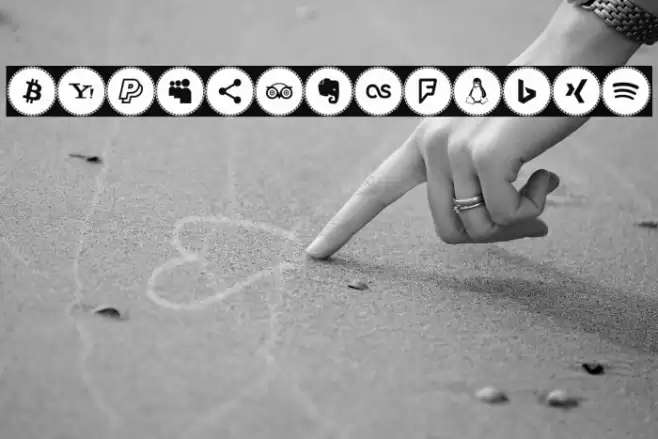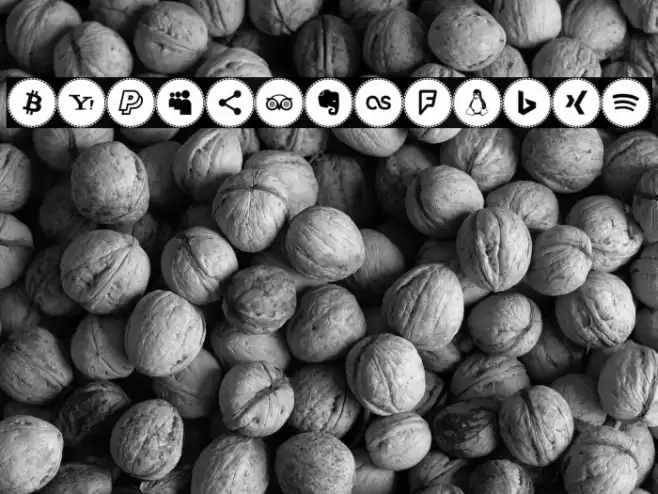
Icons Social Media 11 Font
A set of monochrome, circular social media and tech brand icons with bold, simplified glyphs in white on solid black backgrounds, each encircled by a dotted outline.
Monochrome circular social media and tech icon set from Dingbats fonts.
- Proposed Projects: Websites, app interfaces, presentations, digital portfolios, social media banners, business cards.
- Overall Style: Modern, Minimalist, Iconic
- Use Case: Icons, UI elements, navigation, branding, social media links.